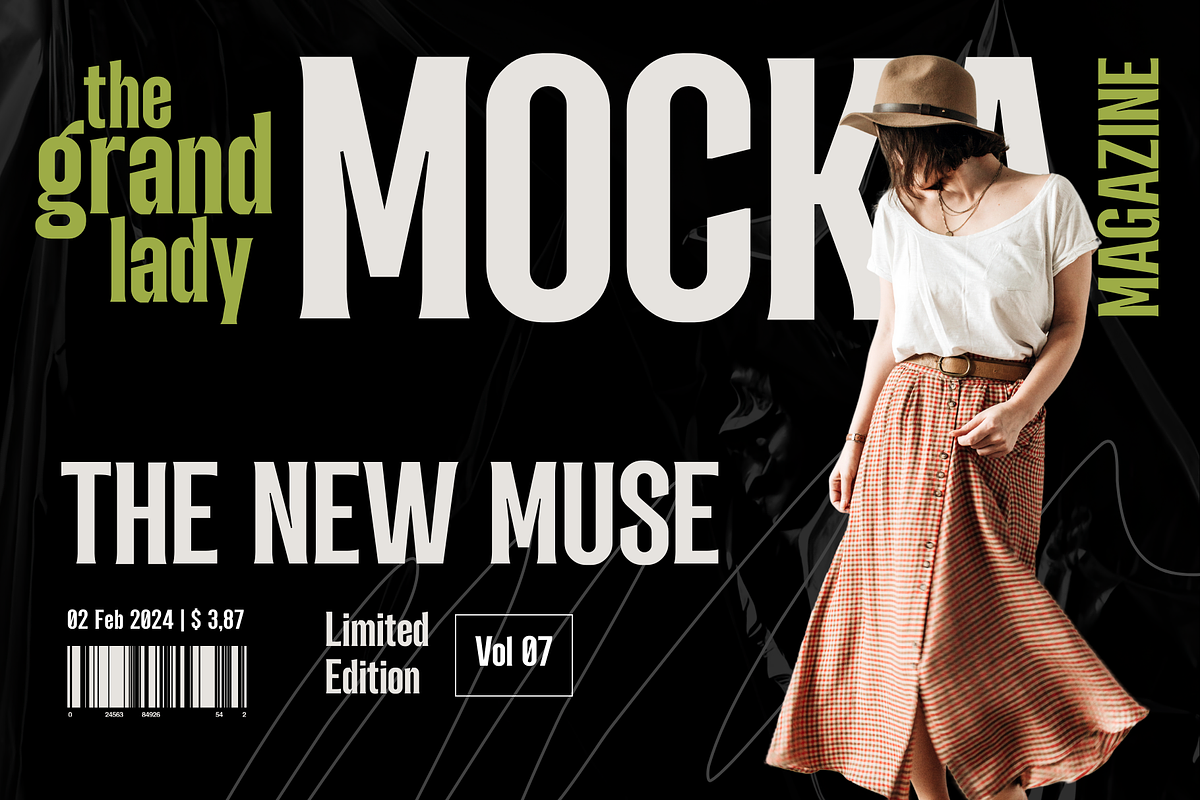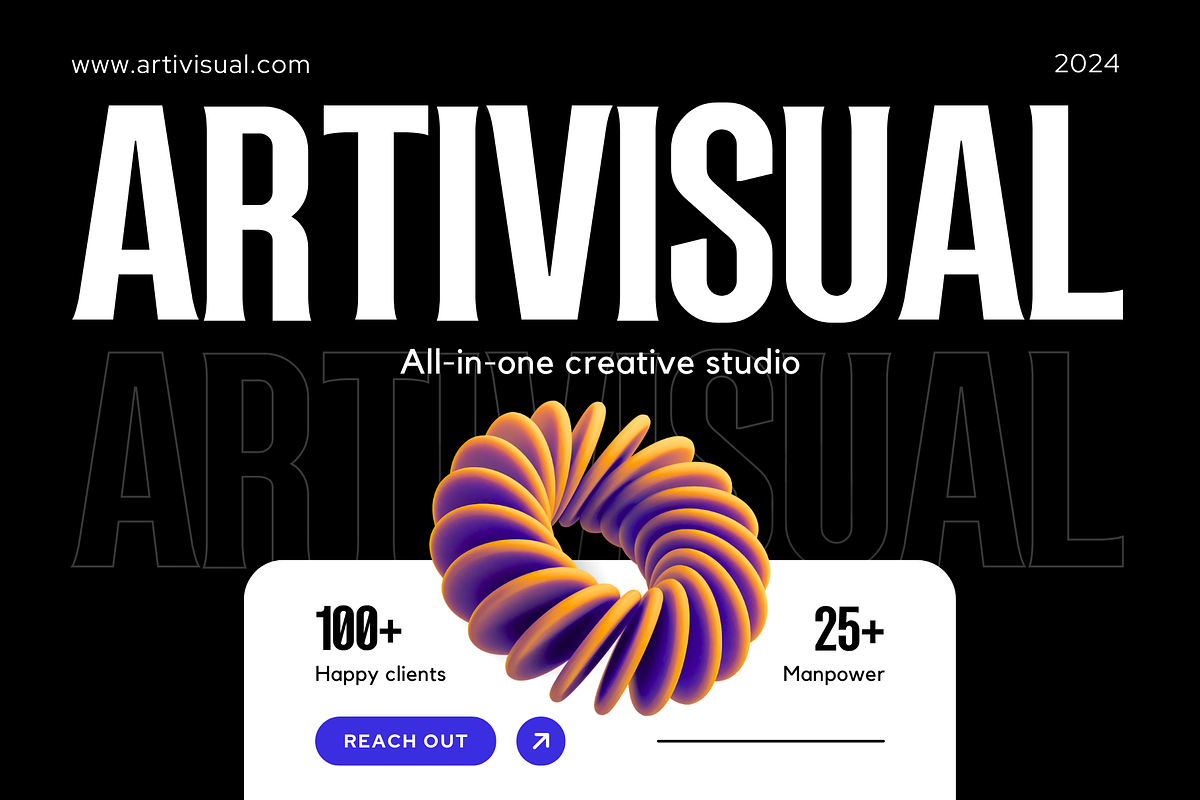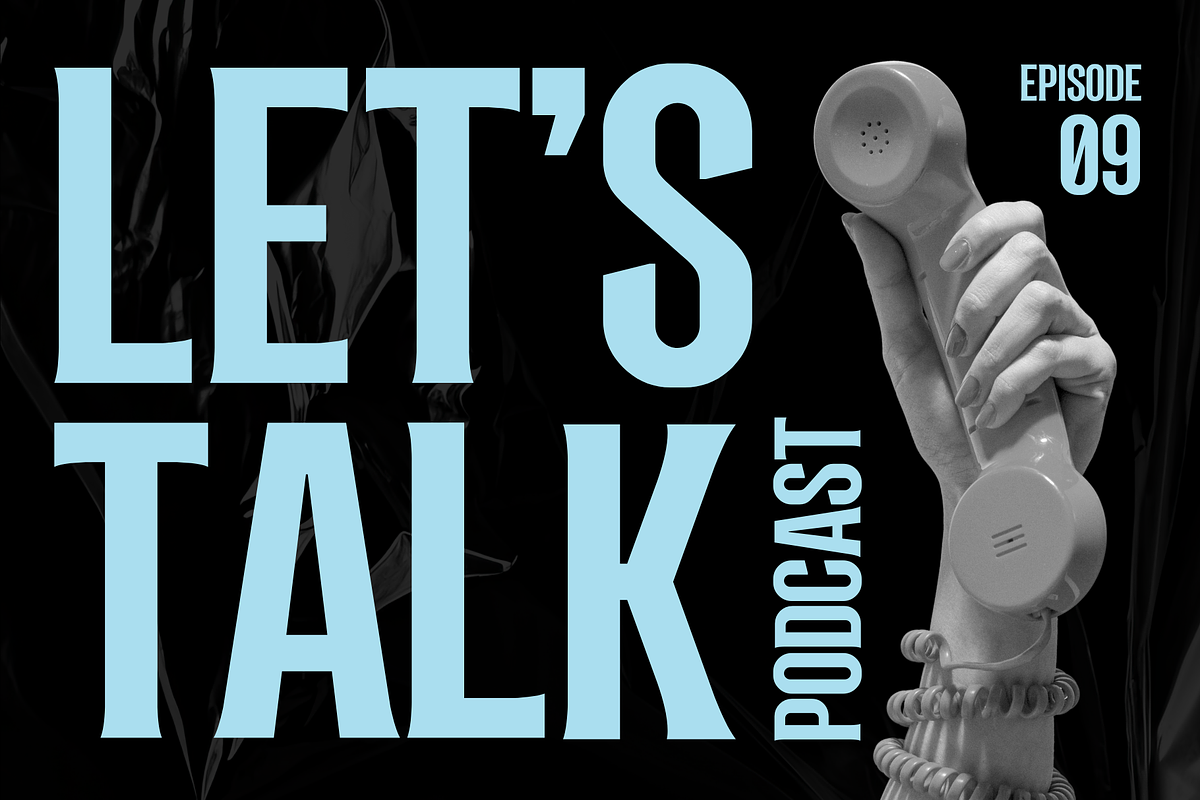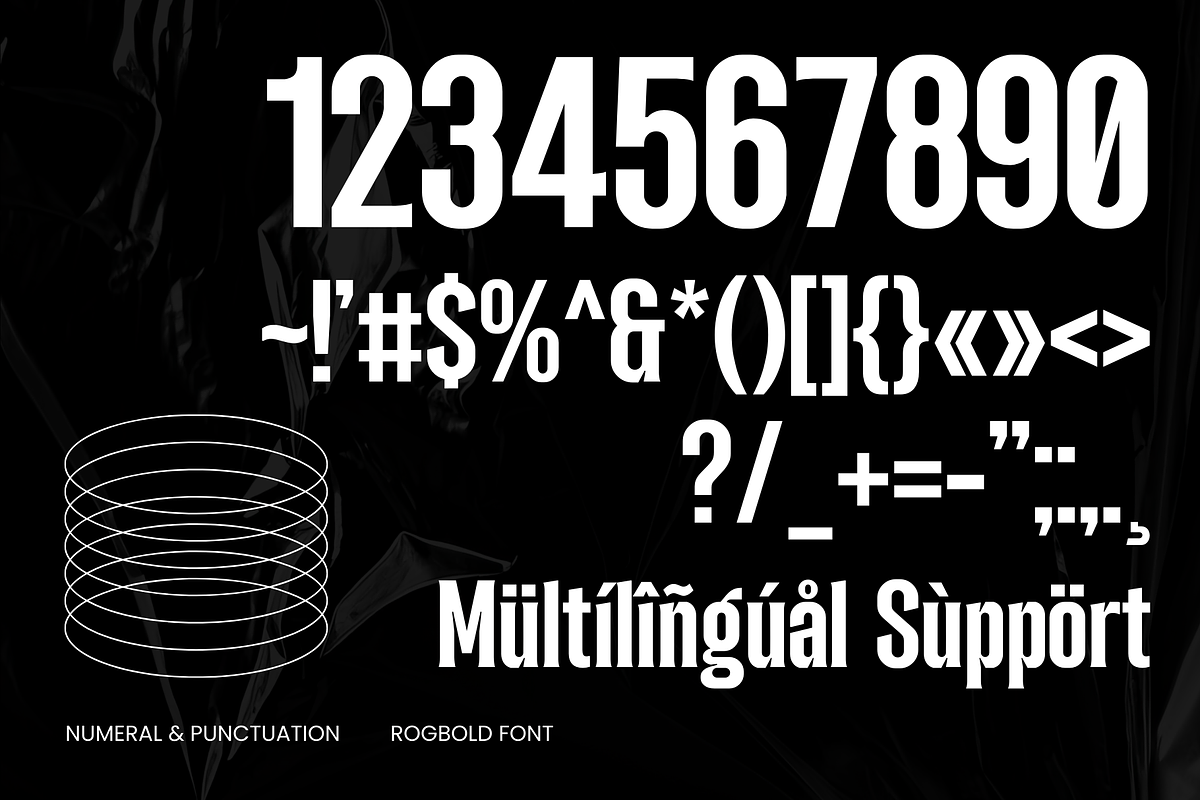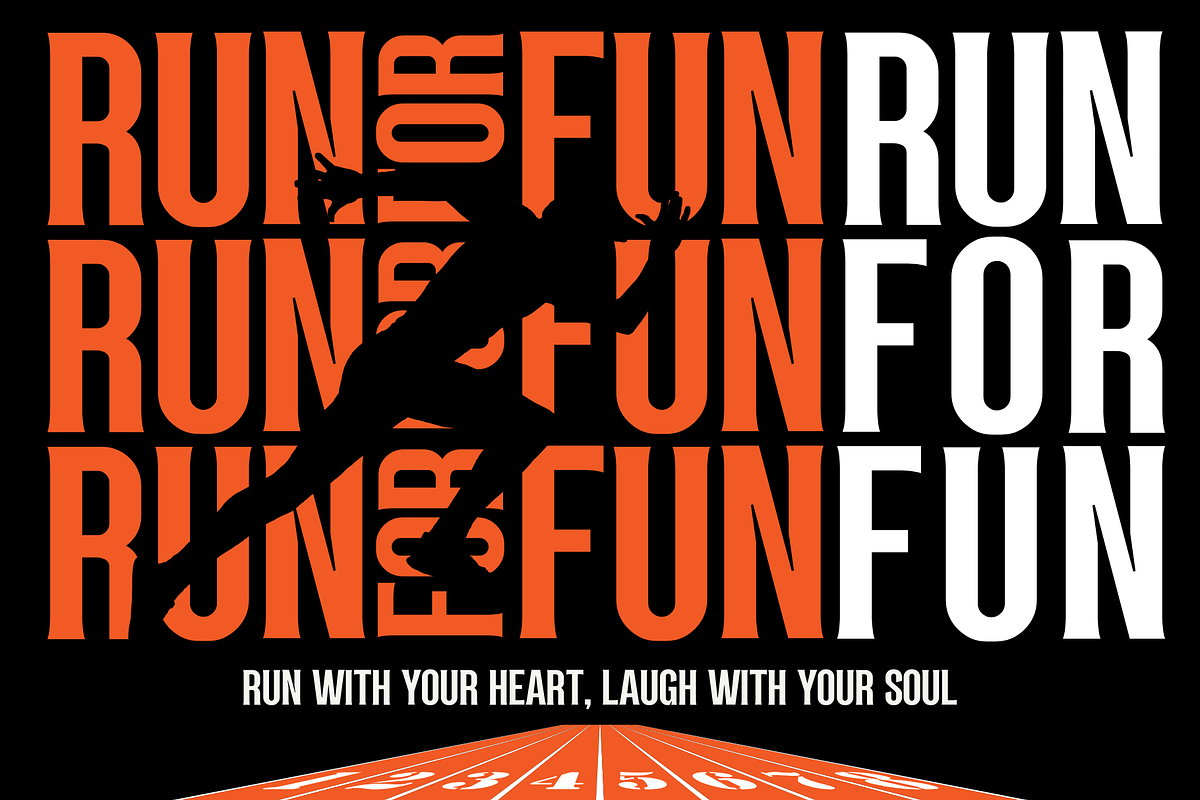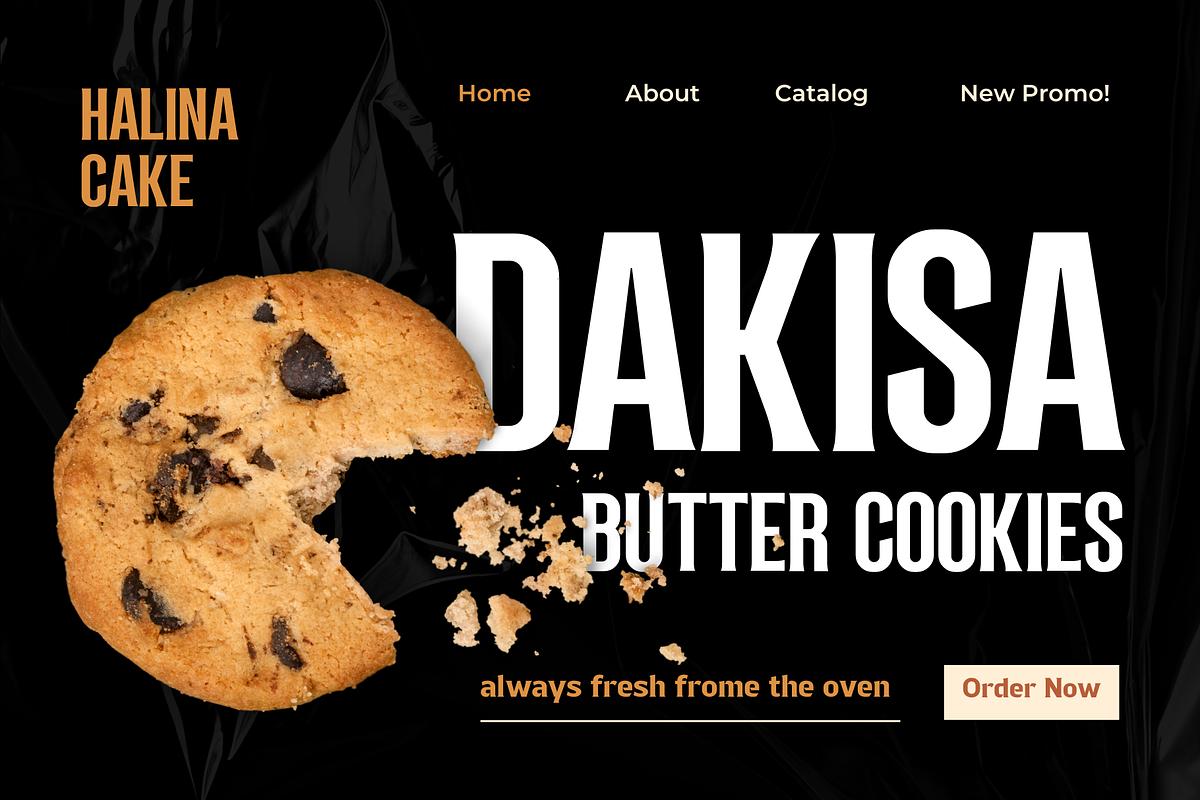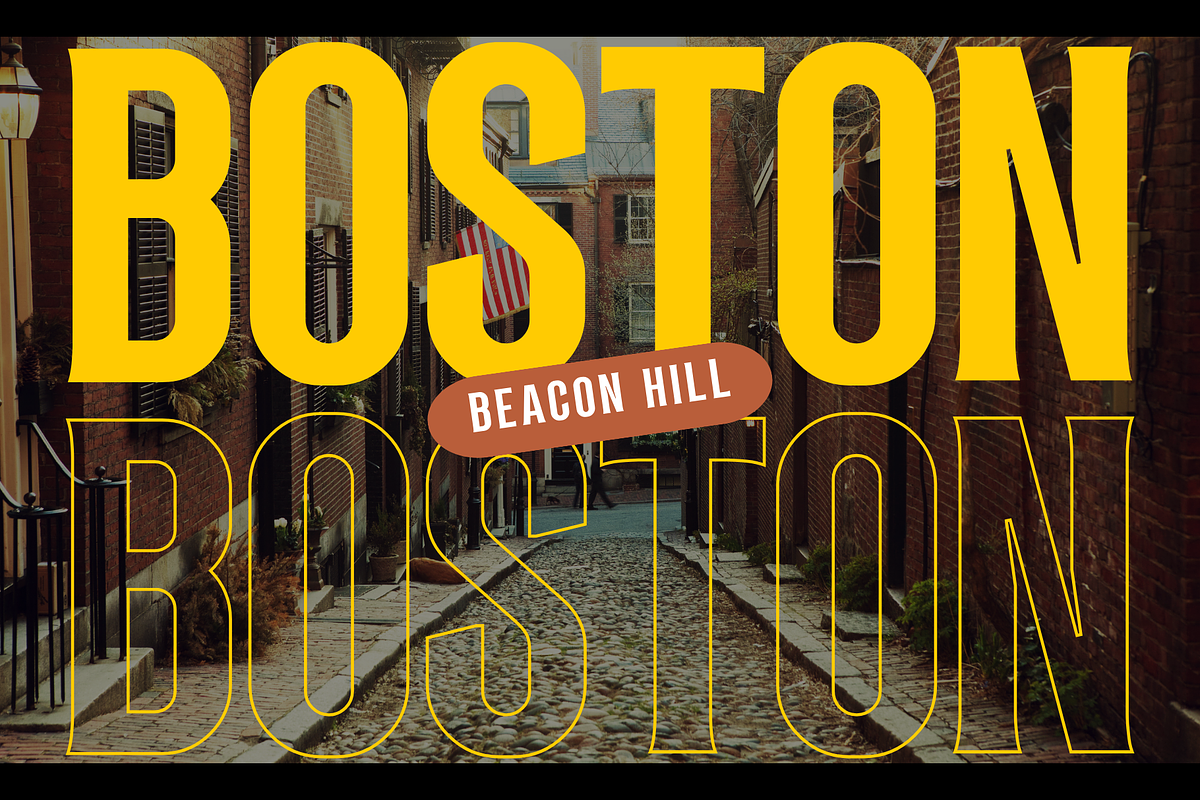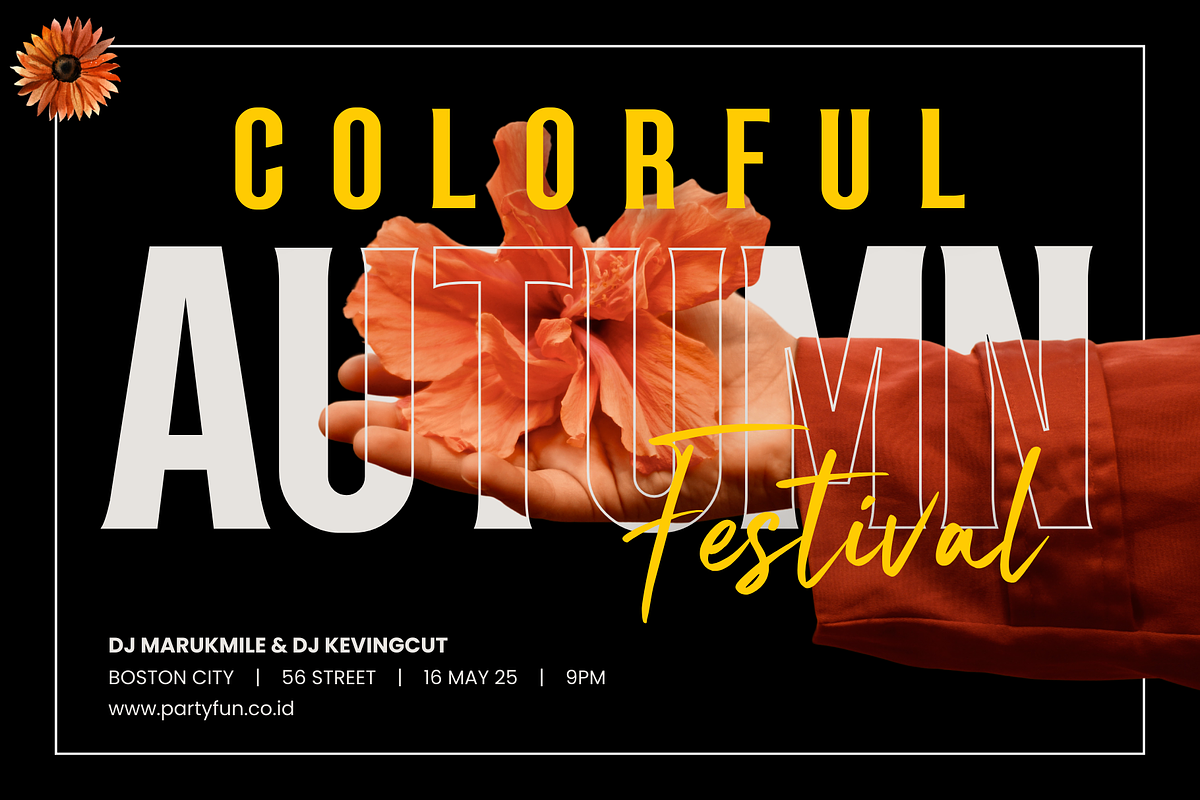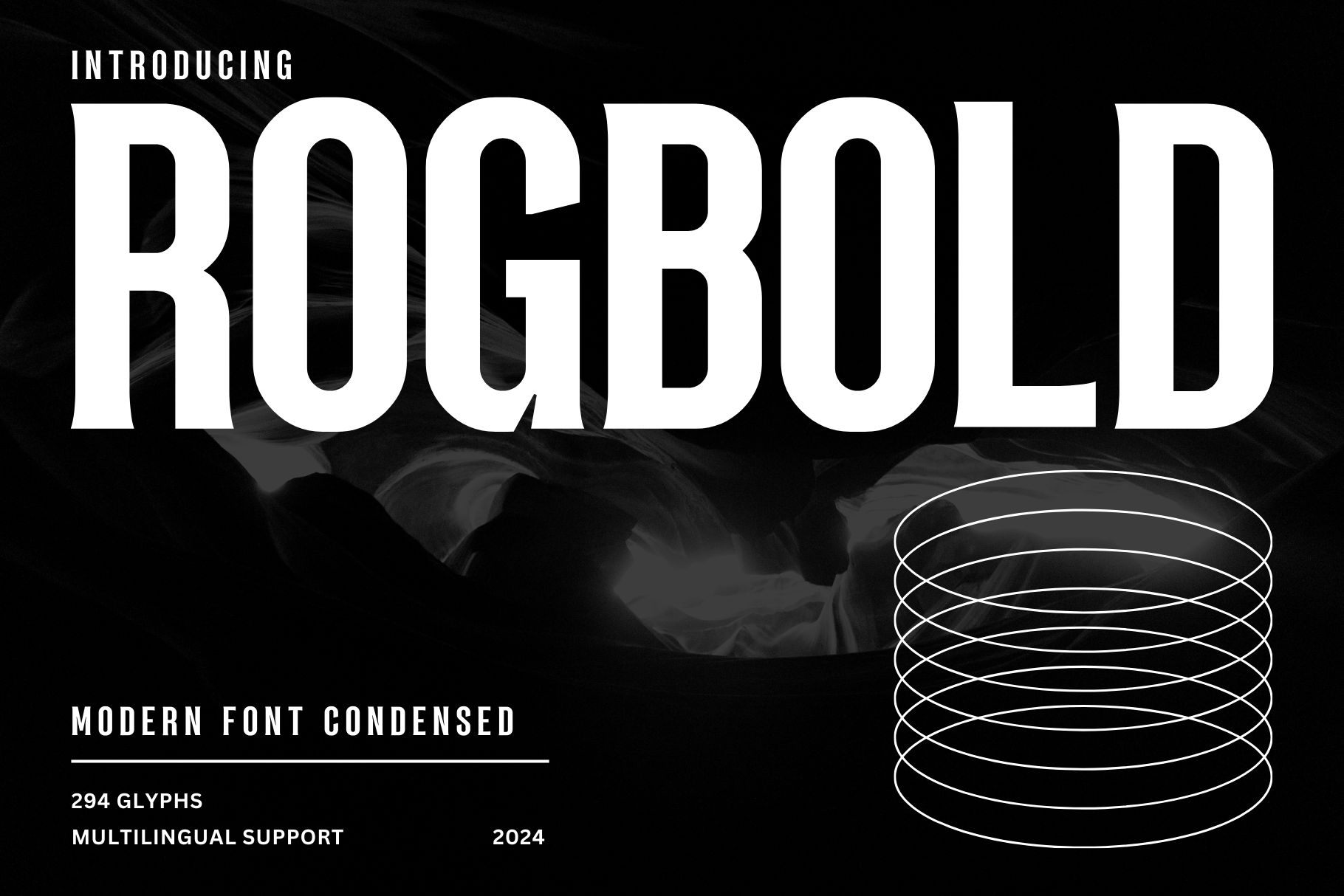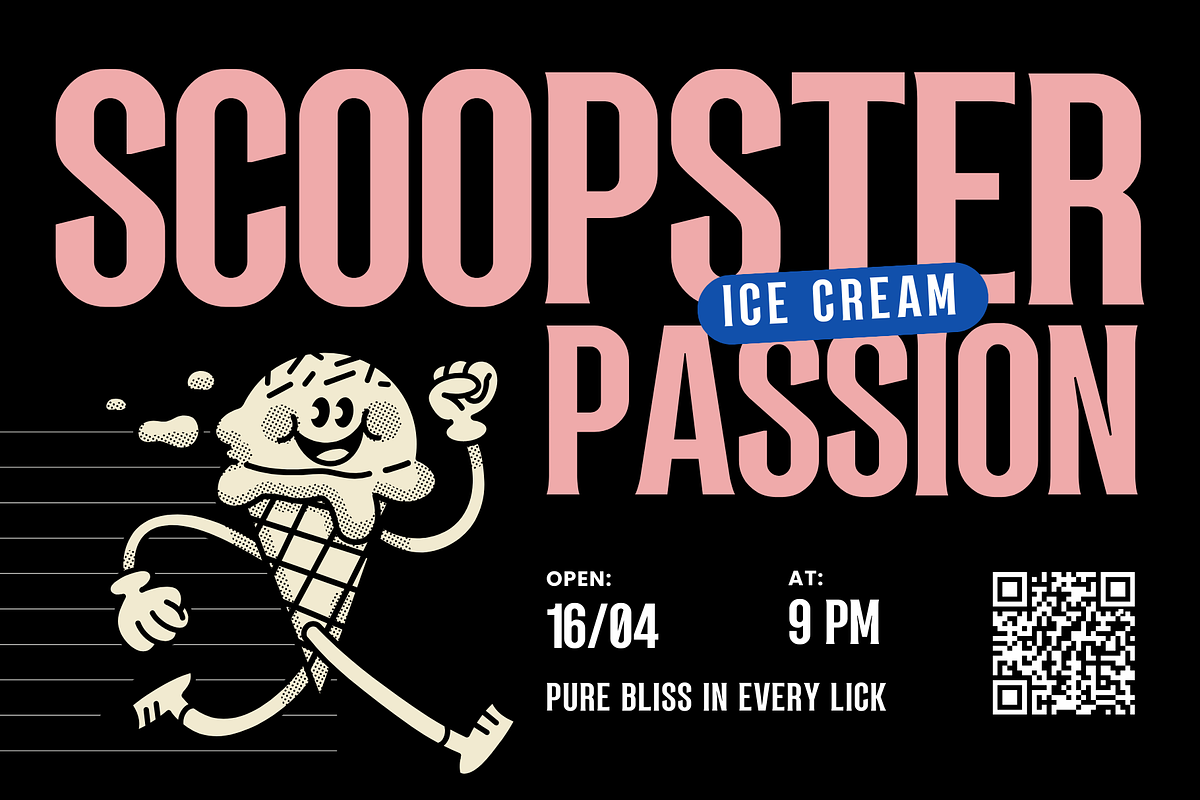
Rogbold – Modern Condensed Font
Introducing “Rogbold,” a modern condensed font that combines sleekness with versatility. With its clean lines and compact design, this font is perfect for creating bold statements in various design projects. Whether for headlines, posters, or branding materials, “Rogbold” commands attention with its contemporary aesthetic and condensed form. Elevate your designs with the modern edge and efficiency of “Rogbold” for a standout typographic impact.